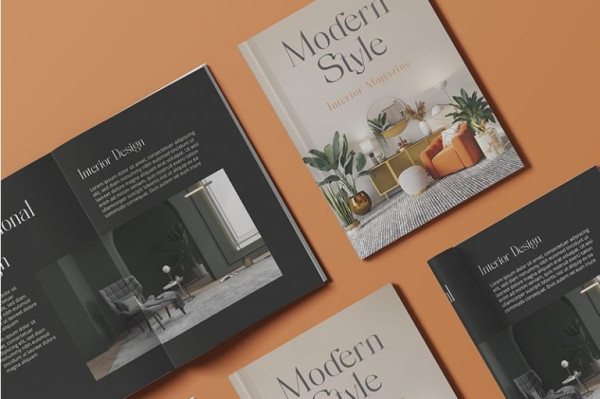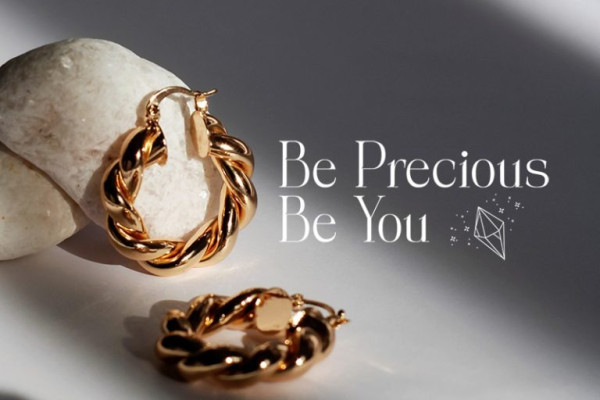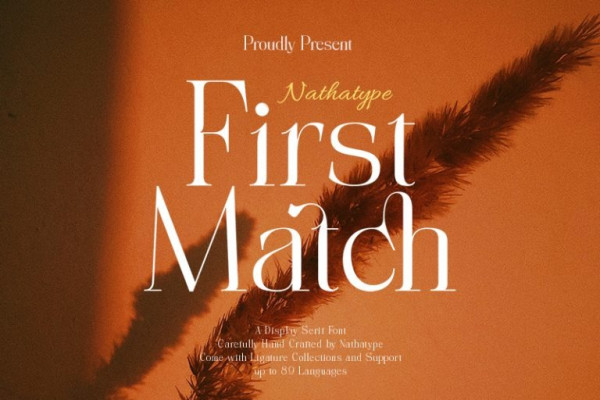
First March Font
First March Font is a captivating display serif font designed with elegance and a touch of modernity. This typeface combines classic serif elements with a contemporary twist, offering a unique and refined look to your creative projects.
The elegant letterforms with clean lines and balanced proportions adding a sense of sophistication and grace to your typography. The serif details provide a timeless appeal, while the modern twist brings a fresh and current vibe to the font. This combination creates a harmonious balance between tradition and innovation. What sets this font apart are its swinging endings in select letters.
These graceful and subtle flourishes add a touch of dynamism and playfulness to the font, creating an engaging visual experience. The swinging endings bring a sense of movement and fluidity to the letterforms, enhancing the overall elegance of the typeface. Because of its legibility you can use this font in a variation of text sizes. Enjoy the available features here.